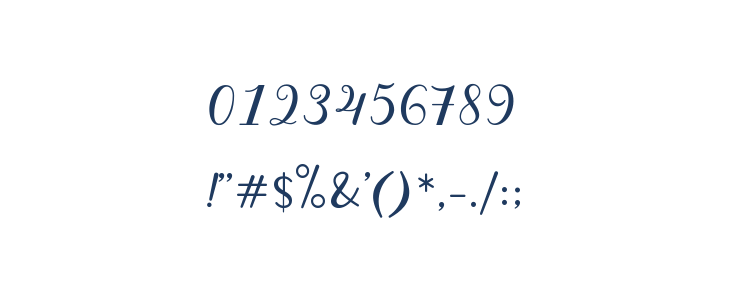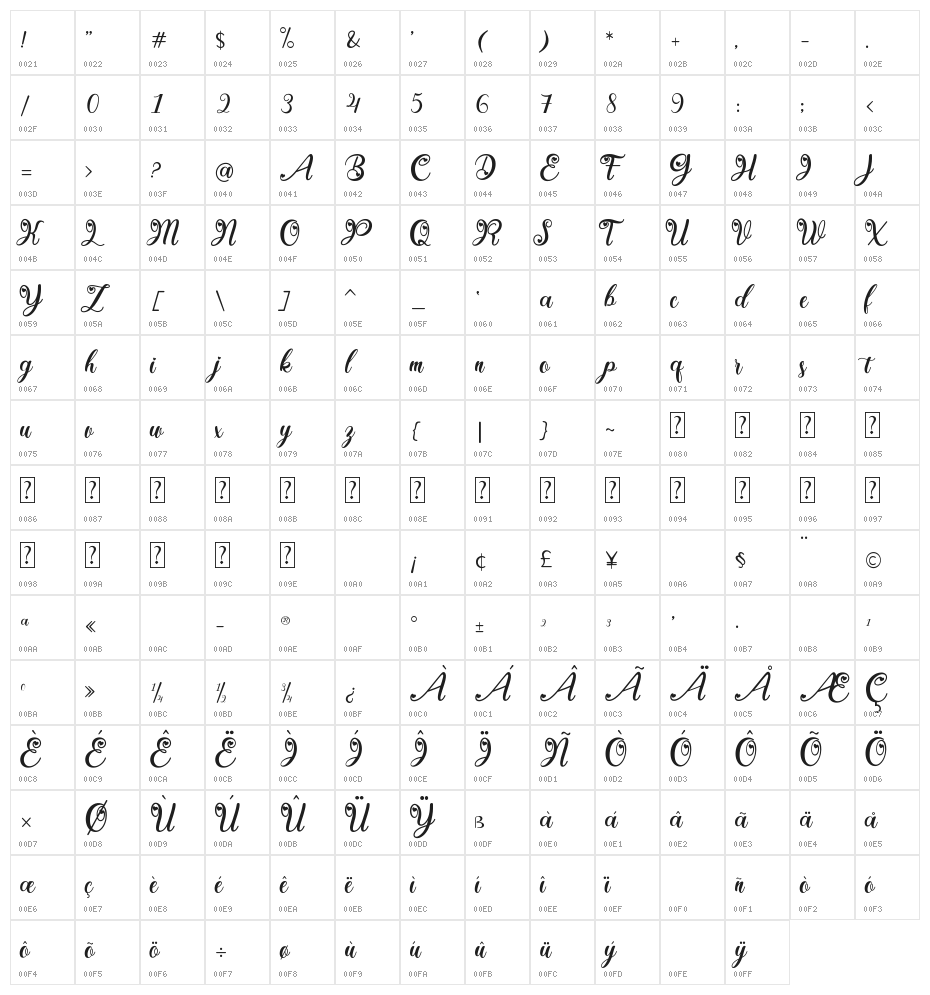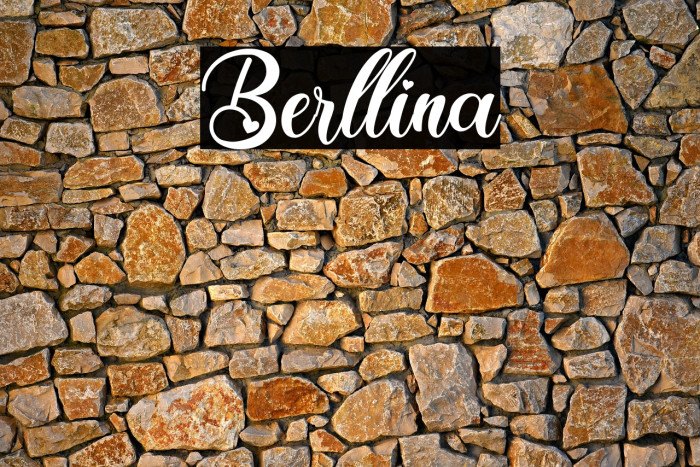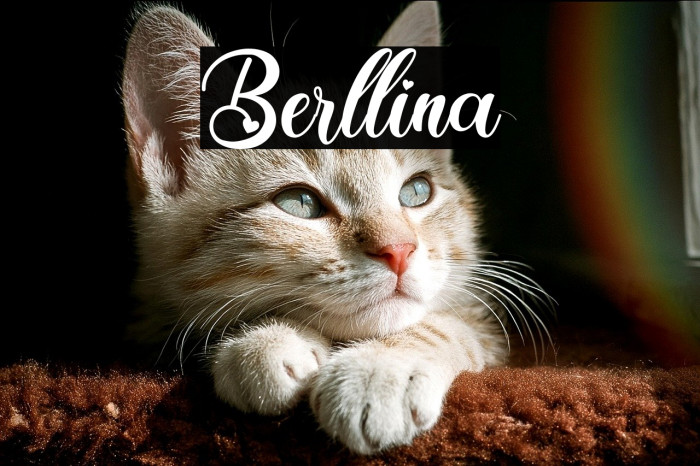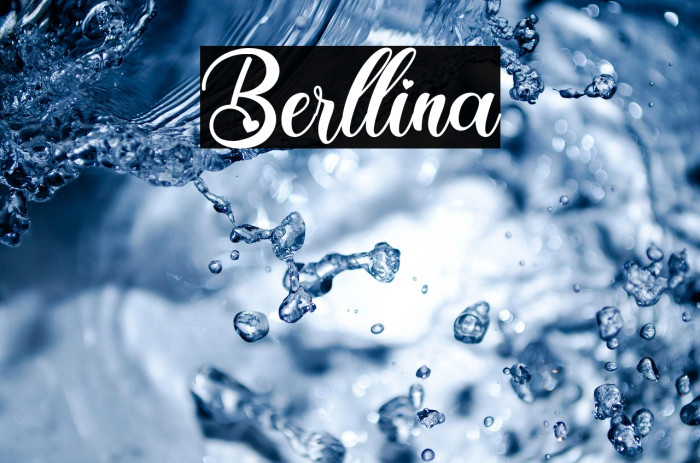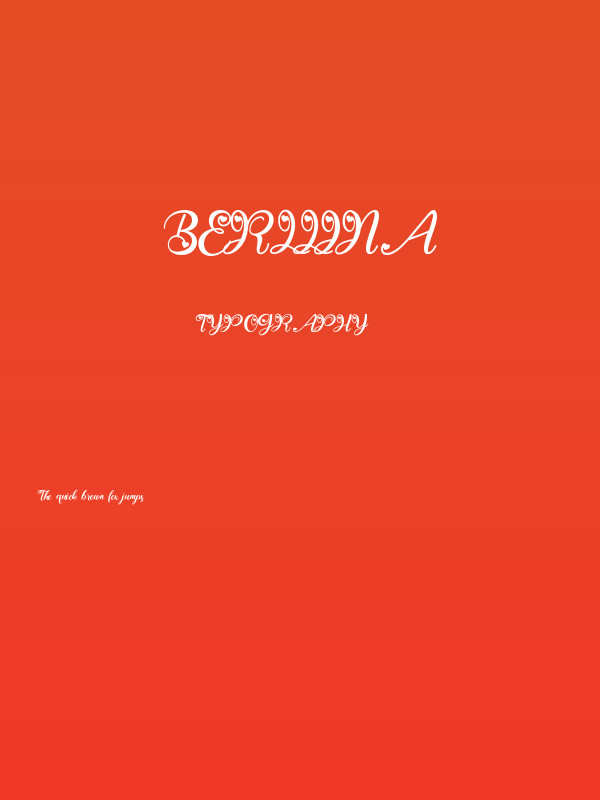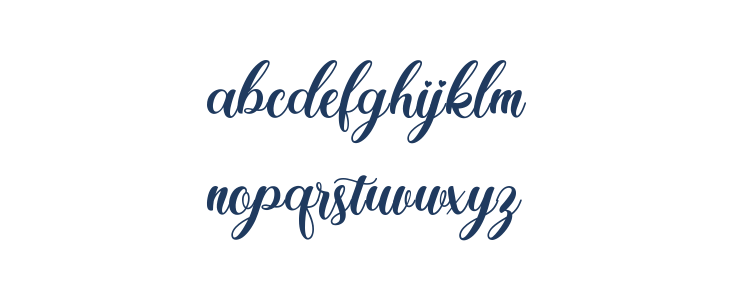
Berllina Font
Berllina Description
This font exudes elegance and sophistication with its flowing, cursive style. The uppercase letters are ornate, featuring intricate loops and swirls that add a touch of formality and grace. The lowercase letters maintain a consistent flow, complementing the uppercase with their smooth, connected strokes. The numerals are stylish yet readable, maintaining the overall aesthetic of the font. Special characters are designed with the same attention to detail, ensuring a cohesive look across all glyphs. This font is perfect for projects that require a touch of elegance and refinement.